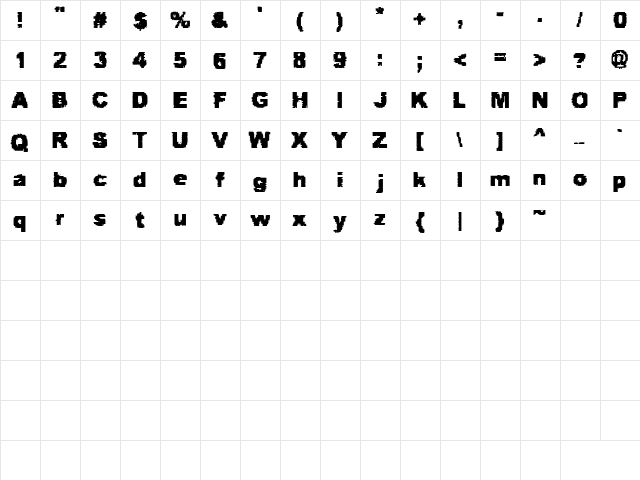
Scottie and Judy Regular
Design Context for Scottie and Judy Typeface
Scottie and Judy is a composed and adaptable typeface that performs quietly and consistently across a wide range of design contexts.